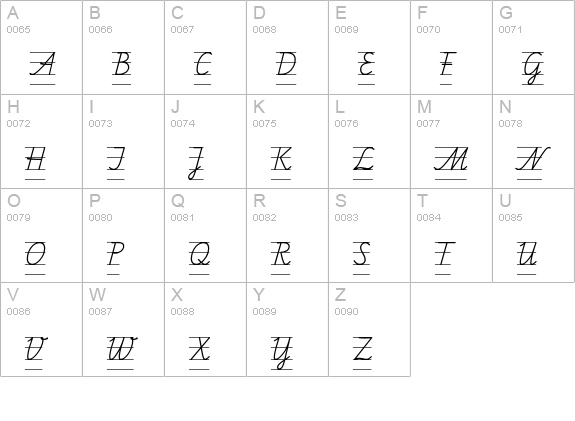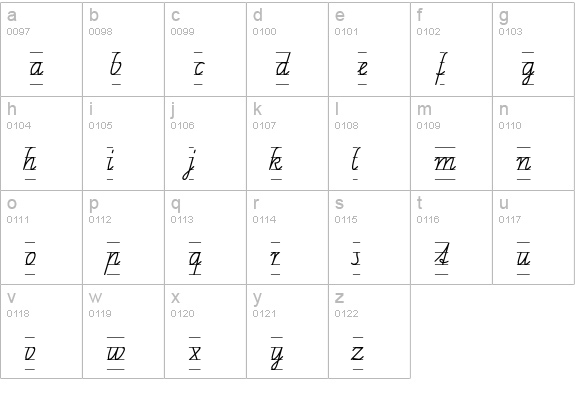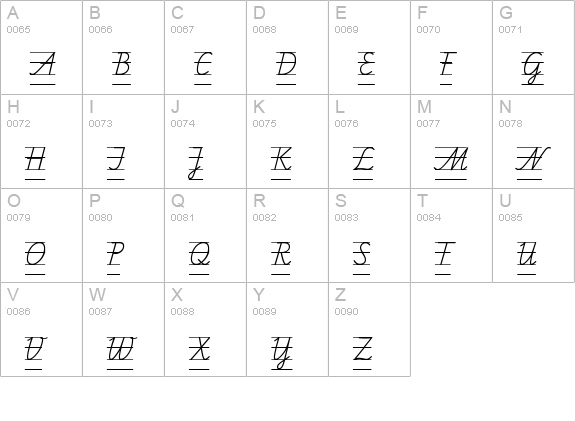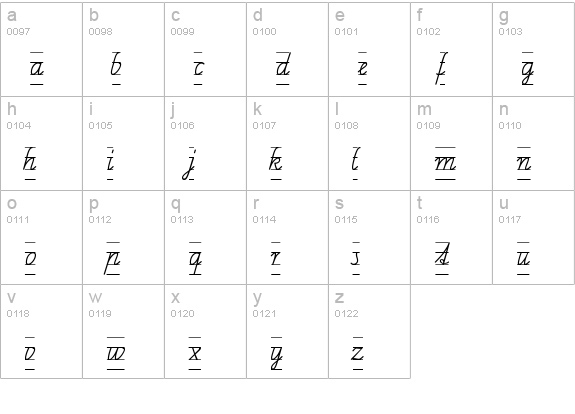
SchulschriftC-L4 is a beautifully crafted font that combines elegance and simplicity. This font is perfect for a variety of design projects, from invitations to logos. With its clean lines and smooth curves, SchulschriftC-L4 adds a touch of sophistication to any design. One of the best things about SchulschriftC-L4 is that it is free to download. Yes, you read that right – this amazing font is available for free at FontsMarket.com. You can easily access this font and start using it in your projects right away. Whether you're a professional designer or just someone looking to add a unique touch to your personal projects, SchulschriftC-L4 is a font that you don't want to miss. Its versatility and stylish look make it a go-to choice for many designers. The legibility of SchulschriftC-L4 is another standout feature. The letters are clear and easy to read, making it perfect for both print and digital designs. No matter the size or format, this font ensures that your message is conveyed effectively. SchulschriftC-L4 also offers a wide range of characters and symbols, allowing you to create eye-catching and engaging designs. From decorative elements to punctuation marks, you'll find everything you need to bring your ideas to life. Don't miss out on the opportunity to enhance your designs with SchulschriftC-L4. Download this font for free at FontsMarket.com and start creating stunning visuals today.